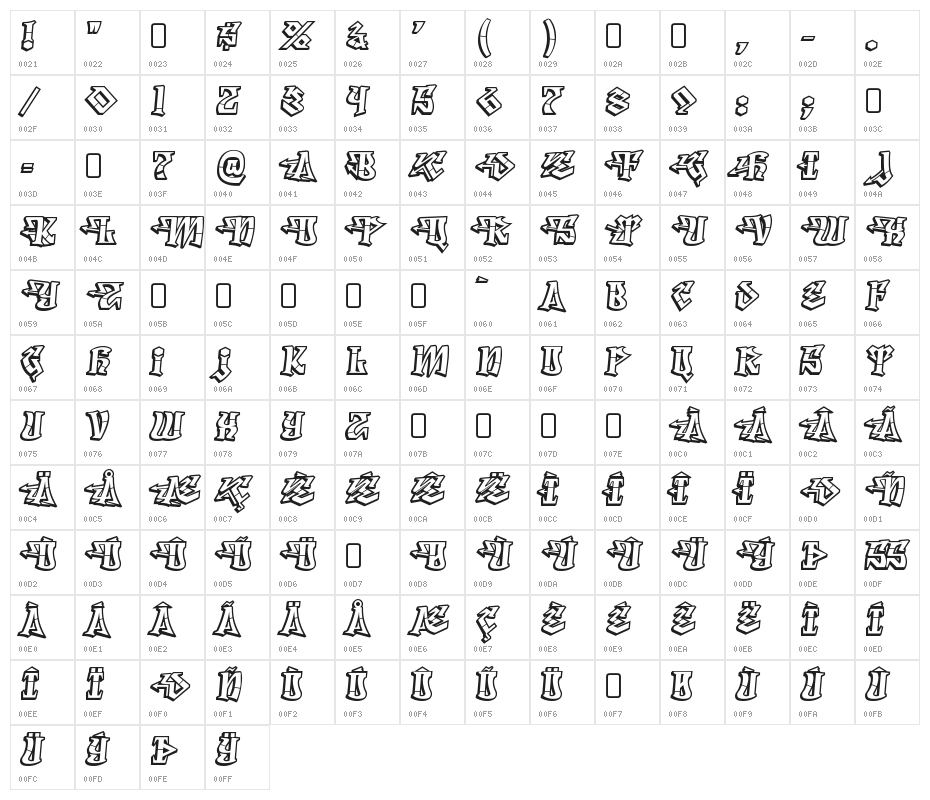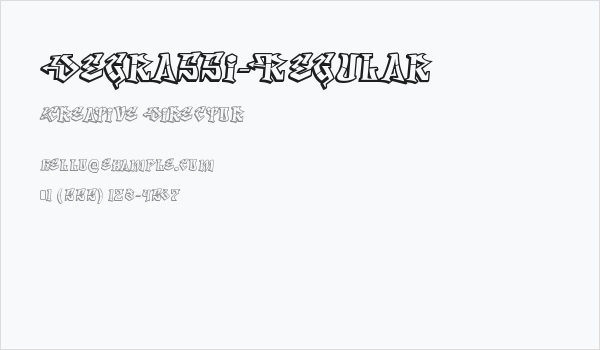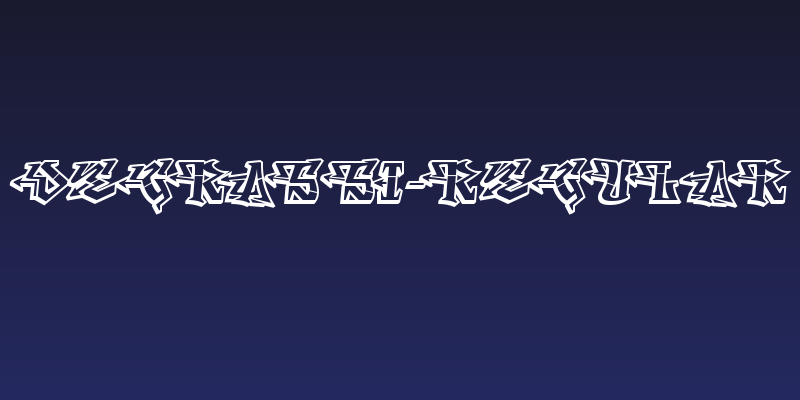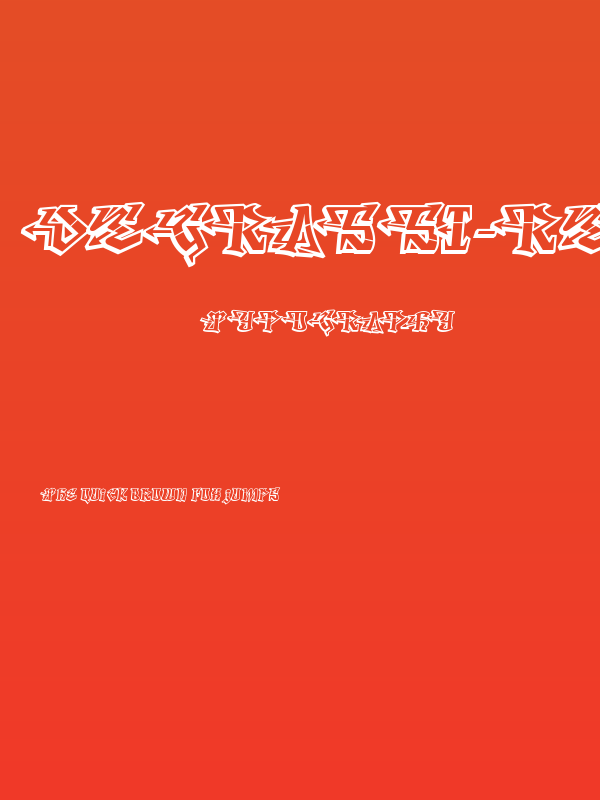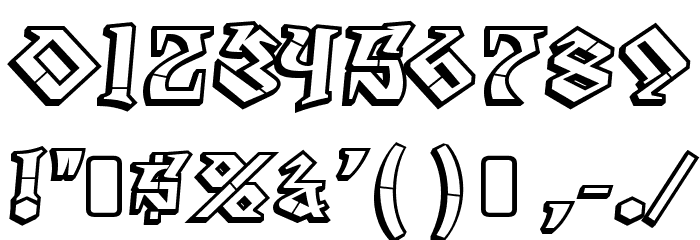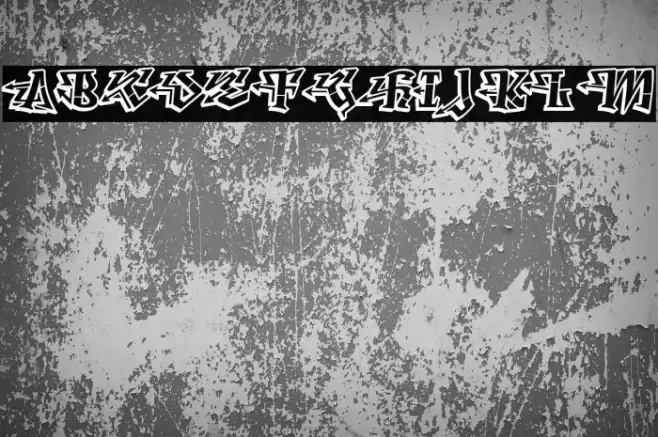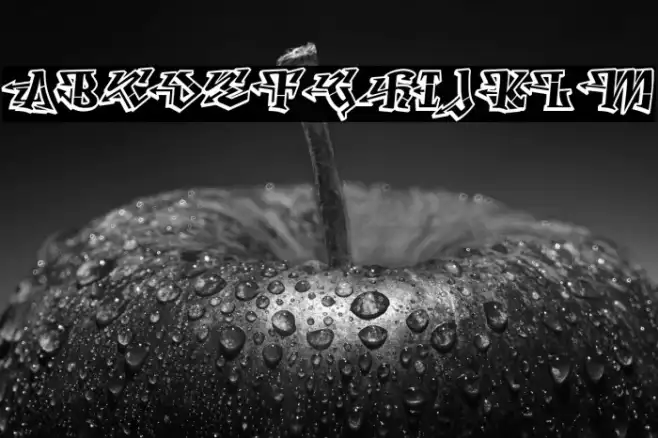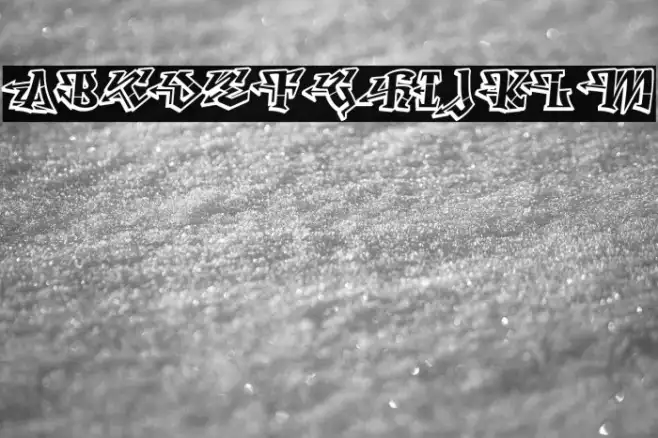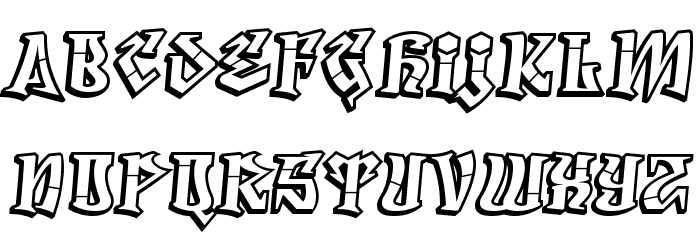
Degrassi-Regular Font
✎ Graffiti
Degrassi-Regular Description
This font features a bold, edgy design with a graffiti-inspired aesthetic. The characters are outlined with a thick black border, giving them a three-dimensional appearance. Each letter has sharp angles and unique cuts, creating a dynamic and rebellious look. The uppercase and lowercase letters maintain a consistent style, while the numbers and special characters complement the overall design. This font is perfect for projects that require a bold statement and a touch of urban flair.
| Overall Style | Modern, Urban |
| Proposed Projects | Ideal for street art designs, music album covers, urban-themed posters, and edgy branding projects. |